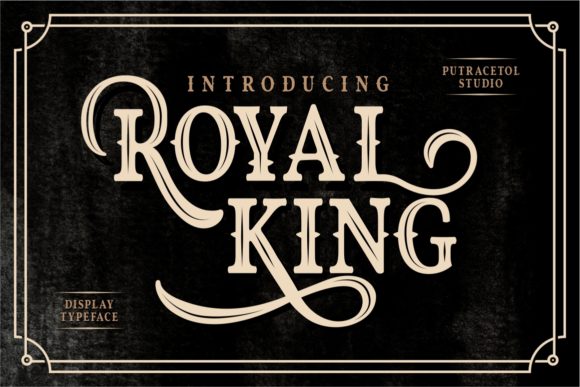
Introducing the Royal King Font, the ultimate choice for those seeking to add a touch of timeless elegance to their projects. Crafted with meticulous attention to detail by putracetol, this vintage display typeface exudes an undeniable charm that will captivate and enchant your audience.
With its ornate and decorative characters, the Royal King Font transports you back to a bygone era, evoking a sense of nostalgia and refinement. Each letter is masterfully designed, creating a visual feast for the eyes and ensuring that your text stands out from the crowd.
Whether you're working on a logo design, creating eye-catching t-shirts, or looking to embellish your quotes and social media posts, the Royal King Font is your perfect companion. Its versatility knows no bounds, allowing you to effortlessly convey a wide range of emotions and messages.
Imagine the impact your brand will make with the Royal King Font gracing your logo. Its regal and sophisticated appearance will instantly elevate your business, leaving a lasting impression on potential customers. Stand out from the competition and establish a strong visual identity that exudes professionalism and class.
For writers seeking the best font for novel writing, look no further than the Royal King Font. Its clean and legible style ensures that your words flow seamlessly across the page, enhancing readability and immersing readers into the world you've created. Let your story come to life with a font that truly captures its essence.
Don't settle for ordinary fonts that blend in with the crowd. The Royal King Font will set you apart and infuse your projects with a touch of grandeur. Its timeless appeal will resonate with your audience, leaving them mesmerized and eager to engage with your content.
Experience the power of the Royal King Font today and let your creativity reign supreme. Your journey towards unforgettable design starts now.